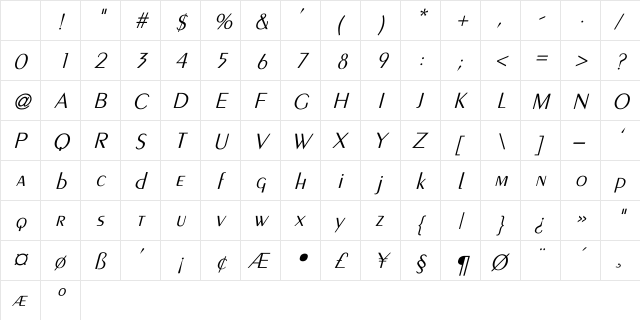
PEIGNOT-LIGHT-Thin is a composed and adaptable typeface that performs quietly and consistently across a wide range of design contexts. The slanted form adds forward momentum and visual energy. Its slender proportions lend an understated elegance to any composition.
Pro Tip: Use PEIGNOT-LIGHT-Thin for emphasis, pull quotes, and subheadings where its slanted energy can add rhythm to the layout.